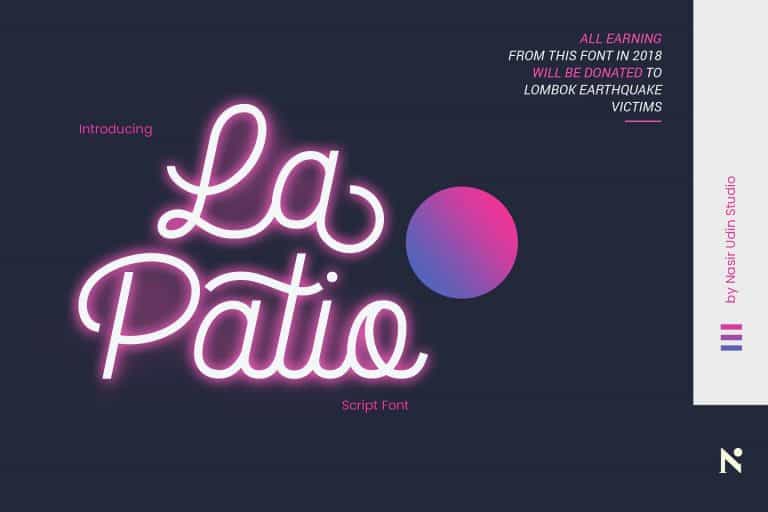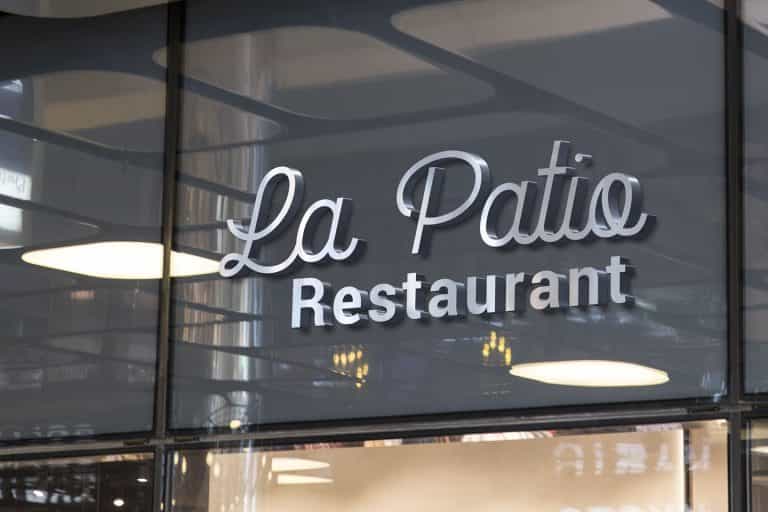
Introducing La Patio Font! La Patio was created and shared by Nasir Udin. A monoline script font resembles the shoelaces and is perfect for being used as a neon sign. The Patio has several alternates and swashes for you to have fun with. Besides, the feature of underline and border supports you in making your design look different. It is designed to be the best for apparel branding and heading typography (e. g. : magazines, blogs, books and others). Besides that, it is ideal for posters, business cards, restaurant decoration, bar and cafe signage, neon signs, wall signage, badges etc.